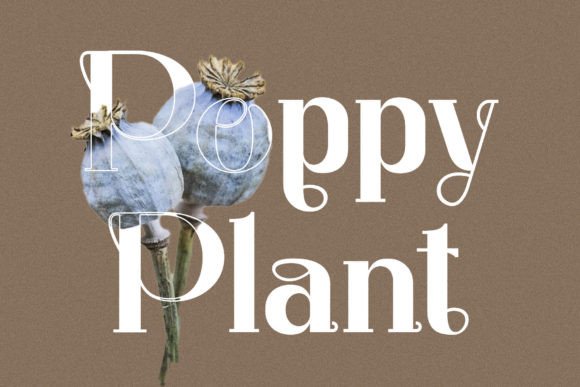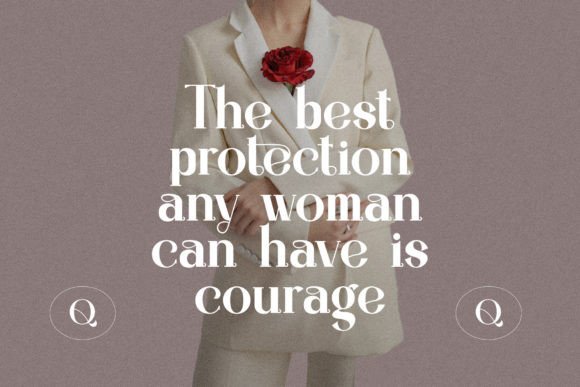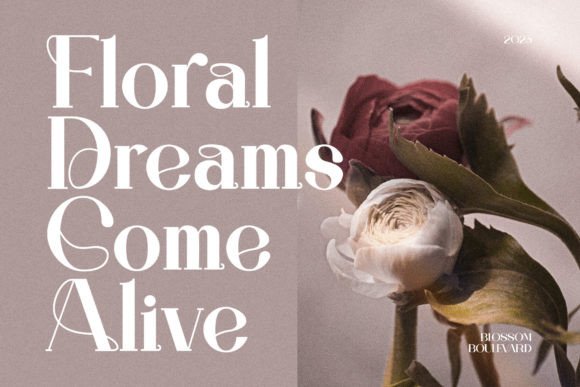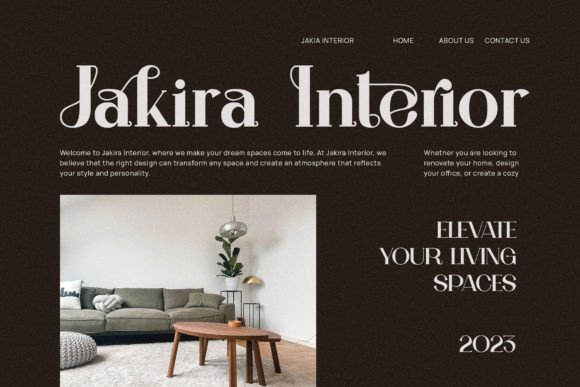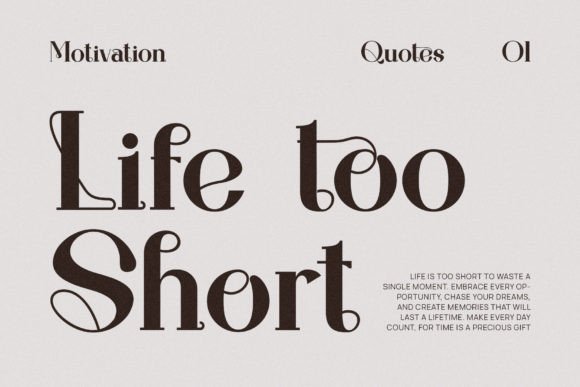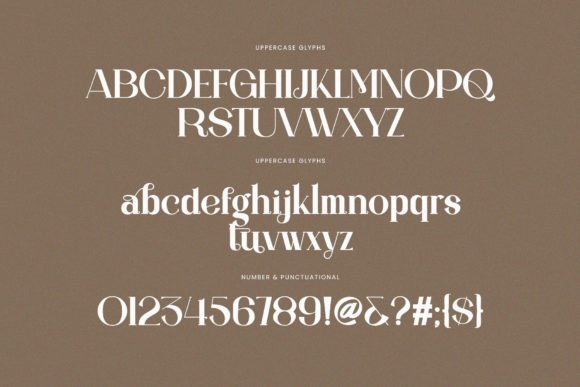
Introduction to Larista Font
Have you ever found yourself staring at a blank canvas, eager to bring a design to life, but struggling to find the perfect font to set the tone? This is where the Larista Font comes in – a game-changer for designers seeking to elevate their creative projects. With its elegant serif typeface and classy modern style, this font is a valuable addition to any design toolkit.
Whether you’re working on a branding project, creating a logo, or designing a wedding invitation, the Larista Font is an excellent choice. Its high quality and readability make it perfect for a wide range of applications, from social media posts to product packaging and labels. Plus, its transparent background allows for seamless integration into any design.
Key Features of Larista Font
- Unique, modern design style perfect for creative projects, including logos, typography, and branding materials.
Honest Review: Larista Font
As a designer, I’ve come across a plethora of fonts that claim to be high-quality and perfect for creative projects. But let’s get real, most of them fall short. The Larista Font, however, is an exception. I was pleasantly surprised by its clean and modern design that lends itself well to various design applications.
Here’s what works well with the Larista Font:
- ✨ High-quality typography that’s crisp and clear, even on a transparent background.
- ✨ Versatility – it’s perfect for creative projects that require a touch of sophistication and elegance.
- ⚠️ Limited font styles and weights, which may not be ideal for complex design projects.
- ⚠️ Not suitable for display on a full-page background, as the transparency can be overwhelming.
Overall, the Larista Font is a solid addition to any designer’s toolkit. While it may not be perfect, its strengths far outweigh its weaknesses. If you’re looking for a high-quality font for your next creative project, the Larista Font is definitely worth considering.
The Larista Font is suitable for a wide range of creative projects, including branding, marketing materials, and digital products. Its high-quality typography makes it an ideal choice for presentations, documents, and websites.